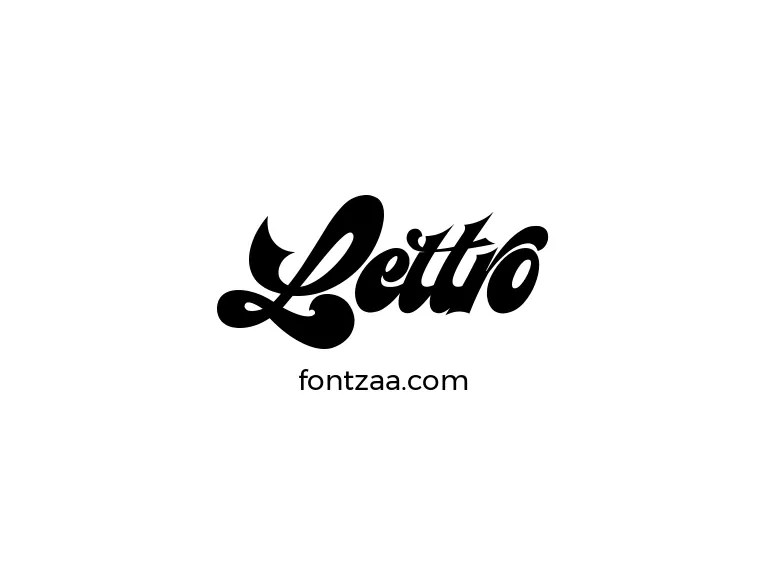
Lettro Font comes from Ferry Ardana Putra and has a modern look. The download includes 1 font file (TTF) with 237 glyphs, covering uppercase and lowercase letters, numerals, common punctuation, accented Latin characters and currency symbols. It suits logos, wordmarks, branding, posters, packaging and promotional graphics, particularly at larger sizes where the letter shapes are easier to see.
Lettro Font Family
| Designer | Ferry Ardana Putra |
| Category | Display |
Pairing and Use
For body text, pair Lettro Font with a neutral sans such as Open Sans or Inter and keep the font itself for headlines and key words.